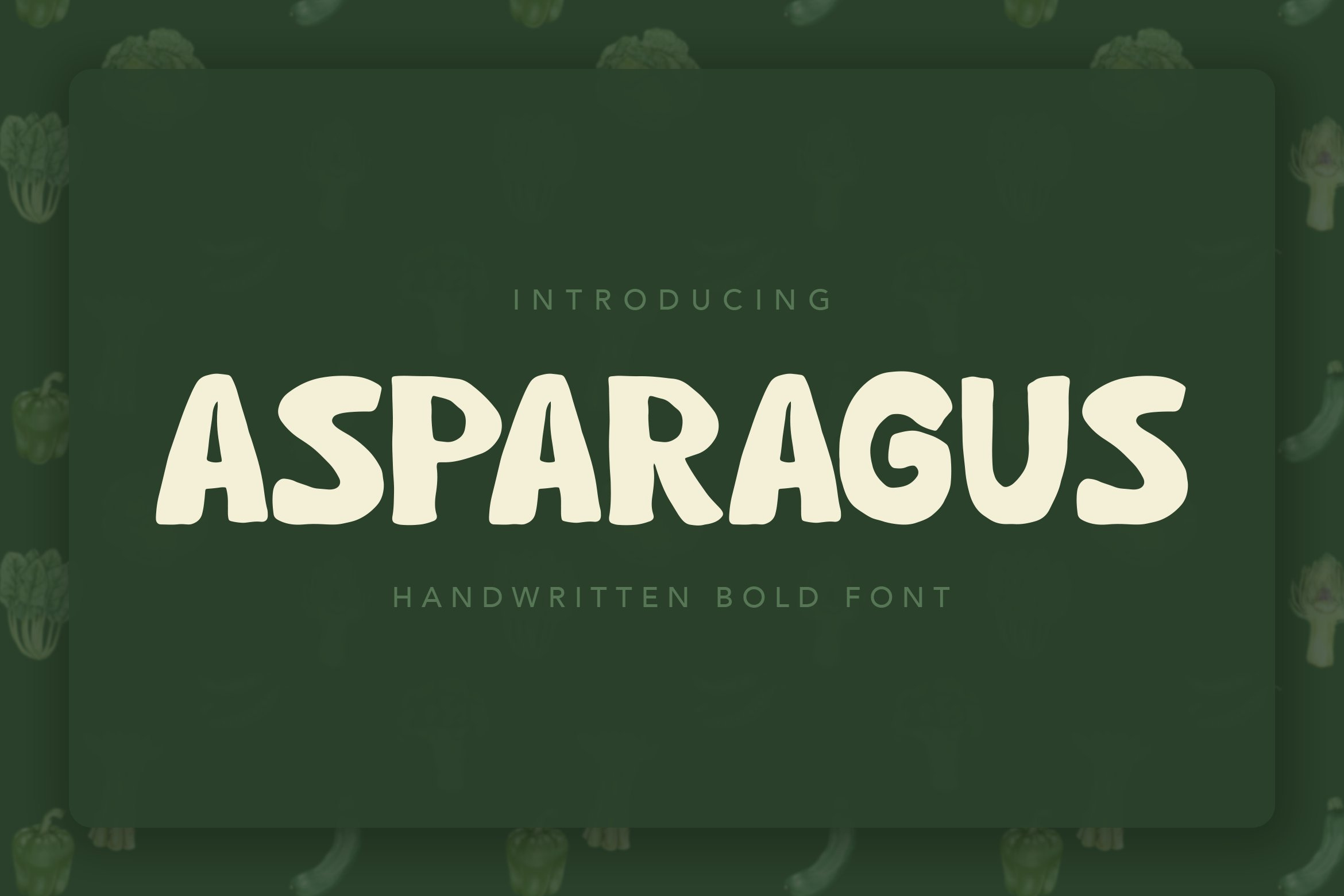
Asparagus Handwritten Font
Asparagus Handwritten Font is perfect for organic food branding, children's book illustrations, handmade craft labels, casual restaurant menus, artisanal product packaging, and personal blog headers. This charming typeface works exceptionally well in farmer's market signage, eco-friendly brand identity, and whimsical greeting card designs.
What makes Asparagus Handwritten Font so exciting is its authentic hand-lettered appearance that captures the spontaneous energy of natural handwriting. The font features irregular baselines, varying stroke weights, and organic letter spacing that creates a genuine human touch in digital designs. Its playful character and approachable personality make it ideal for brands seeking to establish warm, personal connections with their audiences.
Asparagus Handwritten Font comes in multiple variations including Regular, Bold, and Light weights. The font family also includes decorative elements, doodles, and ornamental flourishes that complement the handwritten aesthetic and provide additional design flexibility for creative projects.
The font's irregular letterforms maintain excellent readability while preserving the spontaneous quality of handwritten text. Professional designers appreciate its extensive character set and Unicode support that ensures consistent performance across different languages and applications.
Asparagus Handwritten Font has become increasingly popular among creative professionals who value authentic, human-centered design approaches. Its ability to convey warmth and personality makes it an invaluable tool for brands seeking to differentiate themselves through genuine, approachable typography that resonates with modern consumers.